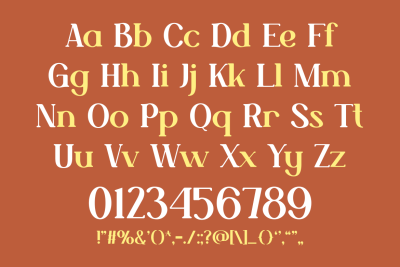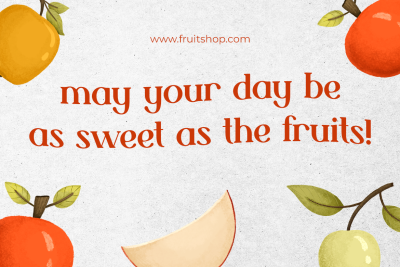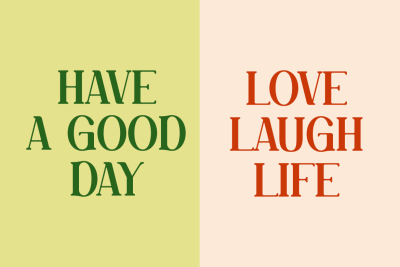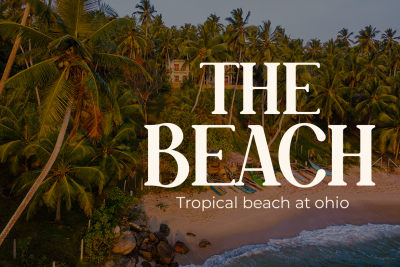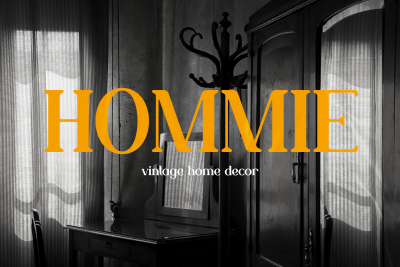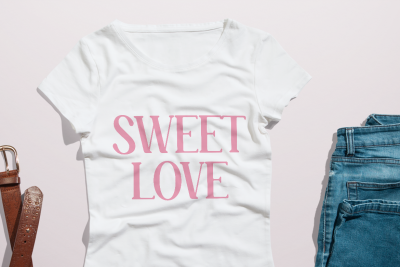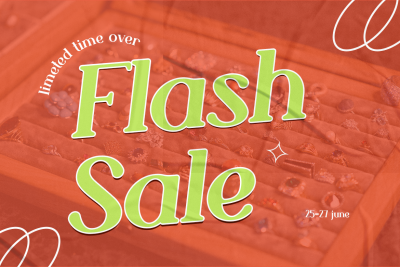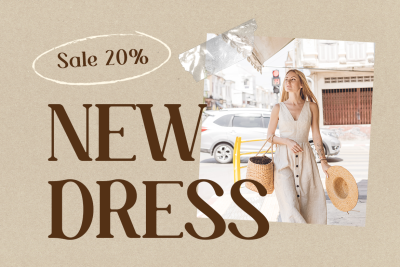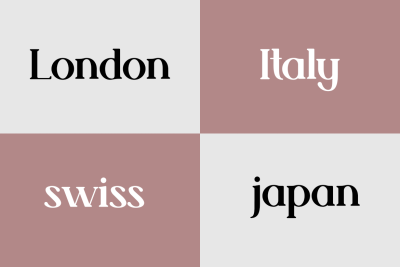
Instagram Font BHALED offers a sophisticated and timeless serif design. Its bold yet elegant letterforms immediately capture attention, creating a striking visual impact. Therefore, it is perfect for branding, editorial designs, and promotional materials. Moreover, its balanced proportions and refined curves ensure versatility and readability, even at smaller sizes. Designers can use BHALED to craft bold headlines or pair it with minimalist layouts. As a result, it adds a touch of class and professionalism to any project.
BHALED takes inspiration from classic typography but incorporates a modern twist. Consequently, it meets the aesthetic demands of digital platforms like Instagram. For example, its high-contrast strokes and rounded serifs enhance visual appeal. Meanwhile, the clean design ensures a polished and cohesive look. Thus, by choosing BHALED, designers can create visuals that stand out and leave a lasting impression. Additionally, BHALED performs exceptionally well in both print and digital formats, making it a versatile tool for diverse creative needs. Whether you’re designing for a trendy social media feed or an elegant printed brochure, BHALED delivers consistent quality.
Instagram Font BHALED Perfect For
BHALED is perfect for graphic designers, content creators, and branding experts. It helps them elevate their work with a premium and versatile typeface. In particular, Instagram influencers, small businesses, and creative entrepreneurs can use this font to build a strong online presence. Furthermore, its elegance and adaptability shine in Instagram posts, story templates, logos, and editorial layouts.
The font works well for industries like fashion, lifestyle, and luxury, where a polished look is essential. Additionally, bloggers, wedding planners, and boutique owners can rely on BHALED for invitations, product labels, or promotional content. Its timeless charm also fits book covers, art exhibitions, and vintage-inspired branding. Beyond this, BHALEDโs clean and adaptable design is ideal for digital marketers who need versatile tools for campaigns. Ultimately, with its style and functionality, BHALED empowers creators to confidently bring their ideas to life.